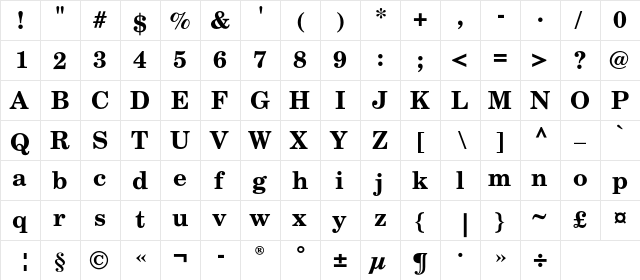
NewCenturySchlbk Cyr Bold Regular
Design Context for NewCenturySchlbk Cyr Bold Typeface
NewCenturySchlbk Cyr Bold offers clean, dependable letterforms without strong stylistic allegiance, making it a practical choice for designers who need flexibility. Its bold stroke weight gives it real presence on the page.